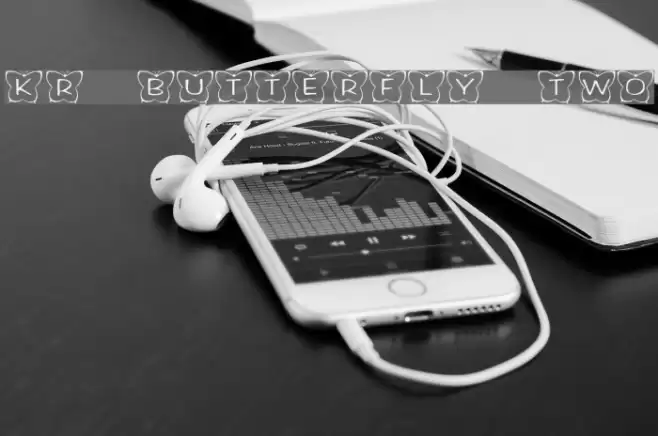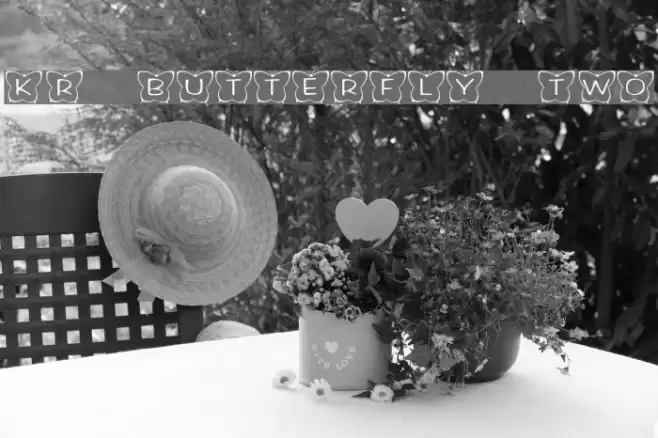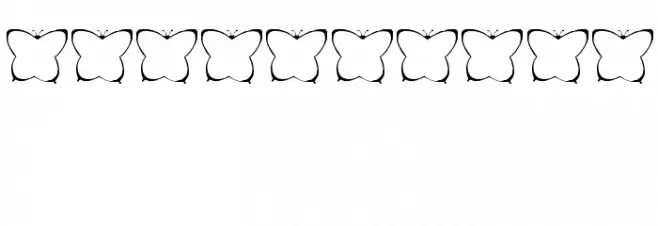
KR Butterfly Two Font
KR Butterfly Two Description
This whimsical font features each letter encased within a butterfly shape, creating a playful and decorative appearance. The letters are bold and simple, contrasting with the intricate outline of the butterfly wings. The design is consistent across both uppercase and lowercase letters, maintaining a uniform look. The font does not include numbers or special characters, focusing solely on the alphabet. Its unique style is eye-catching and ideal for projects that require a touch of nature or fantasy.
A decorative font with letters inside butterfly shapes from Uncategorized fonts.
- Proposed Projects: Ideal for children's books, greeting cards, and nature-themed event invitations.
- Use Case: Logos, Headlines